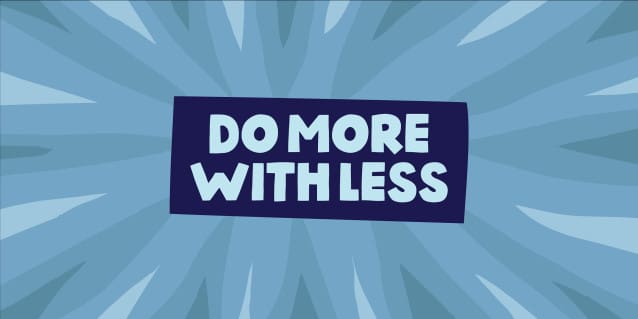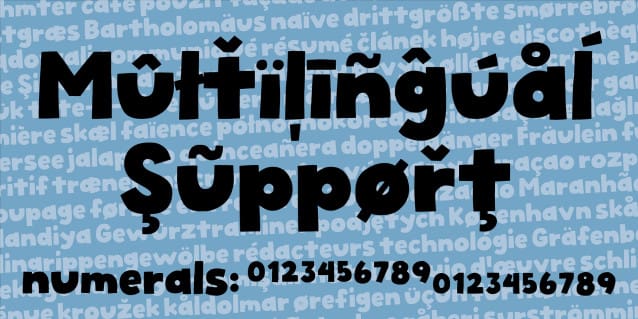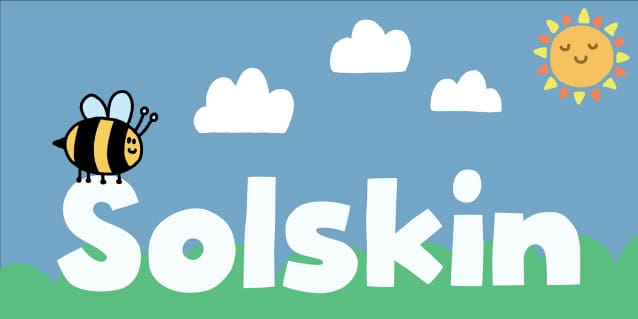
Solskin Display Font
Solskin Display Font means sunshine in danish – and on this rainy, windy and cloudy day, it is something we long for here in Copenhagen, Denmark.
If you are somewhere in the world where you need some sunshine or happiness, I hope that this font will bring some warmth your way.